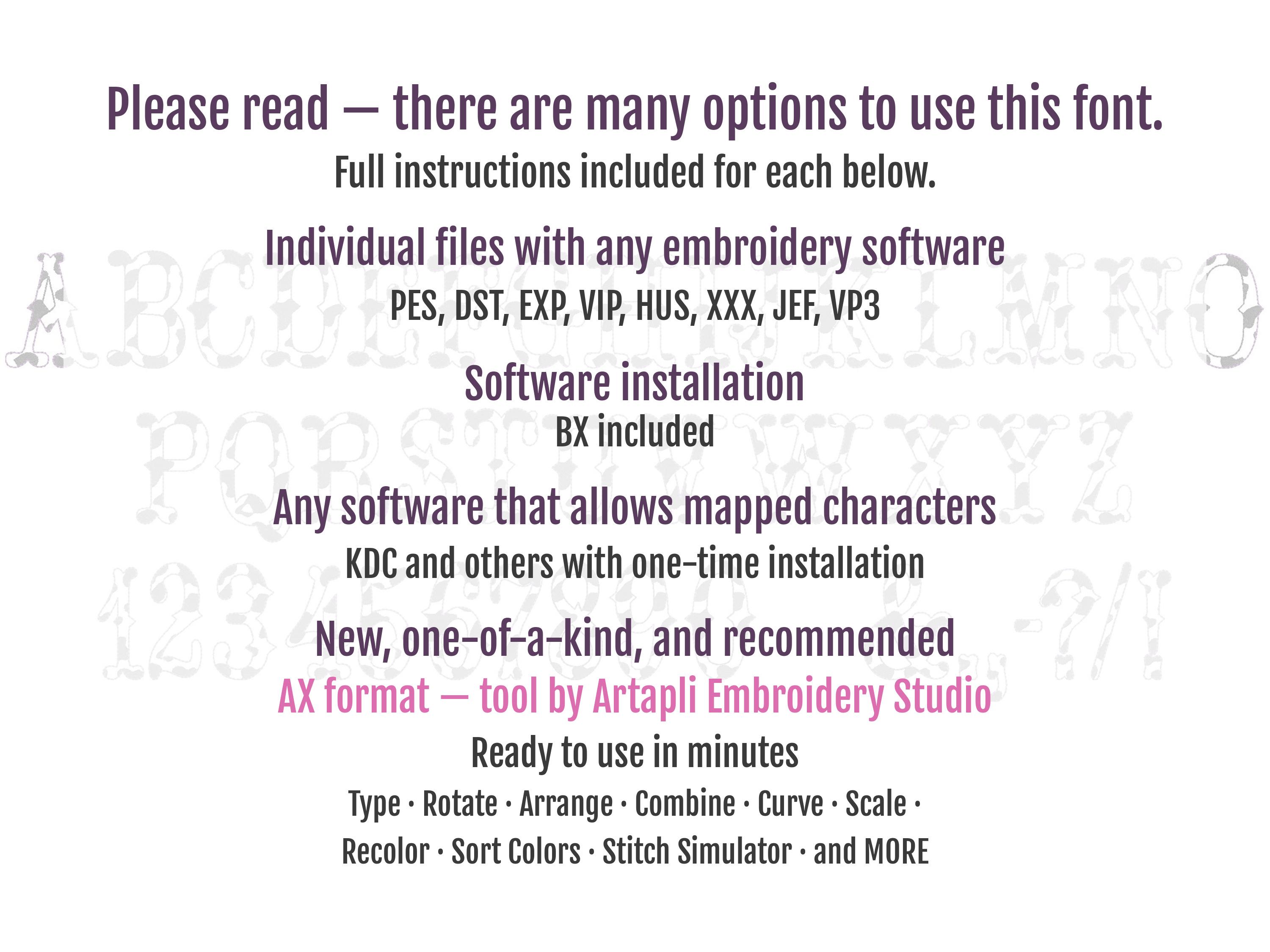
Cow spots patterned Font monogram alphabet letters machine embroidery designs western farm kids funny uppercase numbers punctuation BX included
Uppercase, numbers and punctuation.
These are quick stitch designs, look like laces and the background fabric looks through. Stunning effect.
Cow spots are part of the embroidery.